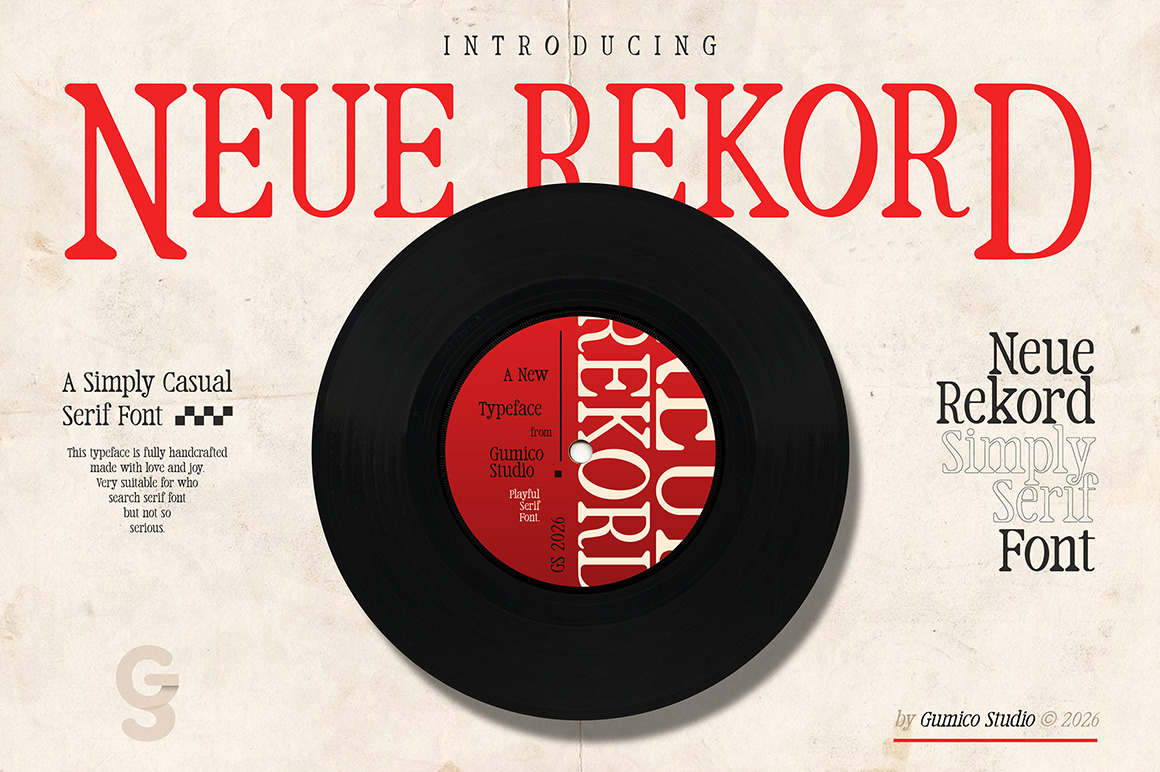
Neue Rekord Typeface - Display Fonts
“Neue Rekord” was crafted carefully for your digital or print project. Inspired by heritage of Mexican label, we created serif font that still gives you casual and modern look for your product.